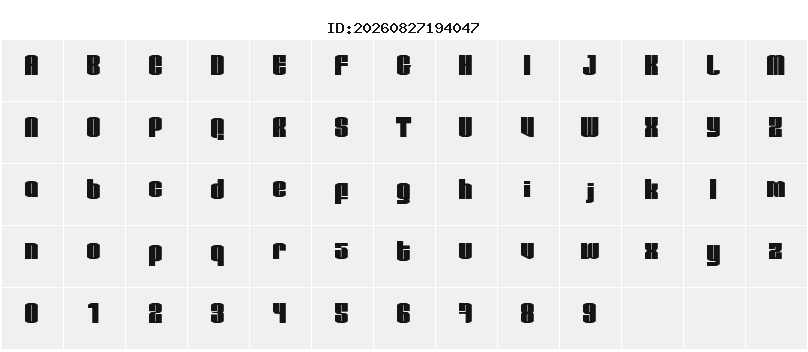
About test1.ttf
test1.ttf is a modern, elegant sans-serif font designed for ultimate readability and visual harmony. Perfect for branding, headlines, web design, and print materials.